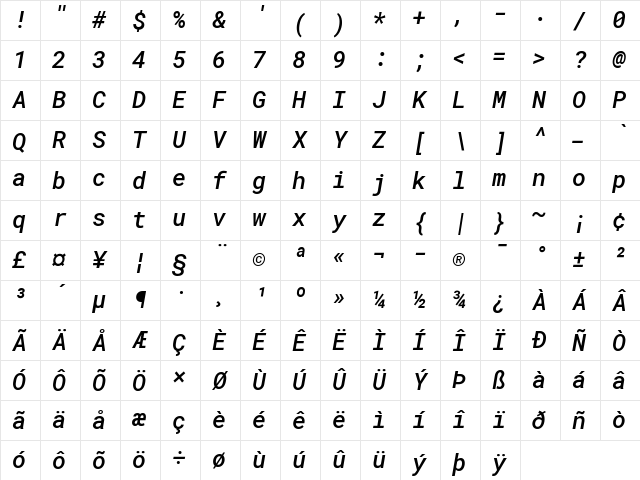
RobotoMono NF Italic
Designer: Google
Design Context for RobotoMono NF
RobotoMono NF uses fixed-width spacing throughout, giving it the structured, systematic character associated with coding environments and technical documentation. The slanted form adds forward momentum and visual energy.